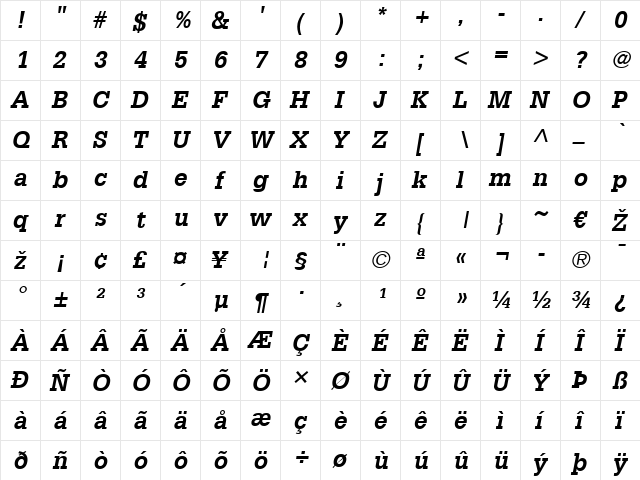
Glypha LT Bold Italic
Design Context for Glypha LT Typeface
Glypha LT offers clean, dependable letterforms without strong stylistic allegiance, making it a practical choice for designers who need flexibility. The dynamic lean of this cut emphasises speed and emphasis in any layout. Its bold stroke weight gives it real presence on the page.
Pro Tip: Use Glypha LT for emphasis, pull quotes, and subheadings where its slanted energy can add rhythm to the layout.